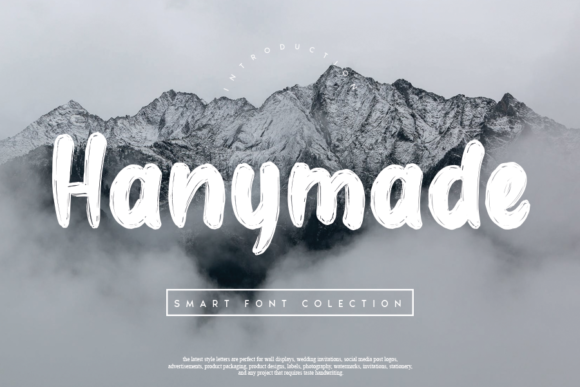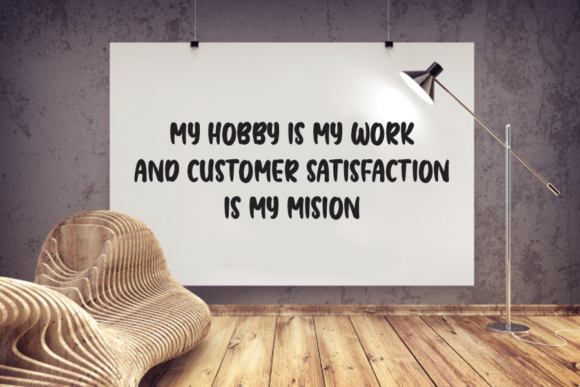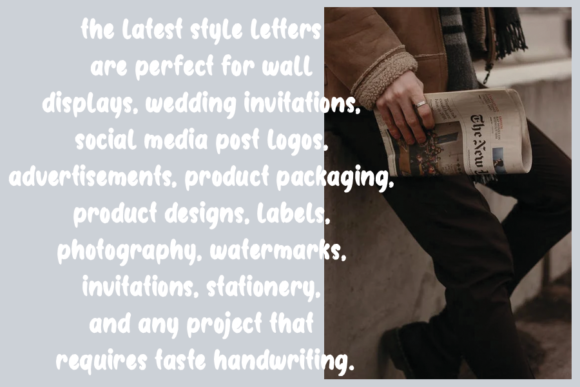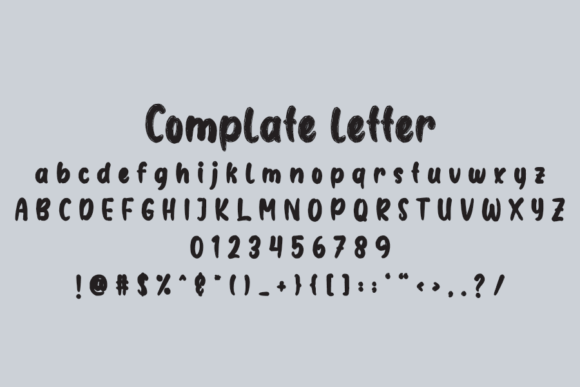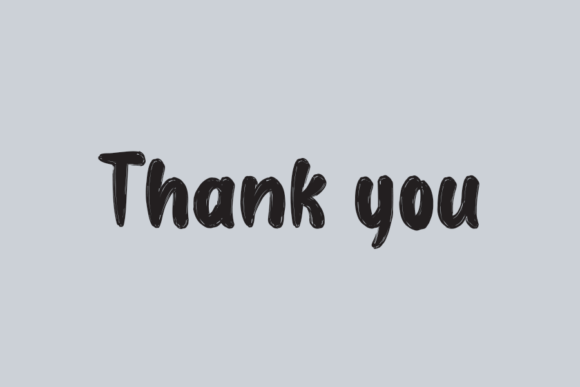
Hanymade Font
About Hanymade Font
Hanymade sounds like a delightful and versatile handwritten font that offers a sweet and friendly touch to a wide range of design projects. With its natural and unique style, Hanymade opens up endless creative possibilities. Here are some exciting ways you can use Hanymade to bring charm and creativity to your designs:
1. Wedding Invitations: Design romantic and whimsical wedding invitations that reflect the couple’s personality using Hanymade’s sweet and friendly letterforms.
2. Greeting Cards: Create heartwarming and personalized greeting cards for birthdays, holidays, and special occasions, conveying warm wishes with Hanymade’s natural touch.
3. Branding and Logo Design: Use Hanymade to add a handcrafted and approachable feel to your brand identity, perfect for businesses that want to evoke a friendly and personal touch.
4. Social Media Graphics: Craft eye-catching and engaging social media graphics, such as quotes, announcements, and promotions, using Hanymade to connect with your audience on a personal level.
5. Product Packaging: Incorporate Hanymade into product packaging design to create a charming and unique brand identity that stands out on store shelves.
6. Art Prints: Design art prints with inspirational quotes or illustrations, using Hanymade’s natural and friendly style to add a touch of warmth to your artwork.
7. Stationery: Create playful and delightful stationery sets, including notepads, stickers, and bookmarks, using Hanymade to add a dash of personality to your designs.
8. Blog Graphics: Use Hanymade in blog post graphics, featured images, and banners to create a cozy and inviting atmosphere for your readers.
9. Book Covers: Design book covers for children’s books, feel-good novels, or motivational titles, utilizing Hanymade’s friendly and approachable vibe.
10. Event Invitations: Craft charming and delightful event invitations for parties and celebrations, infusing Hanymade’s sweet and friendly touch into the design.
11. Quote Artwork: Turn inspiring quotes into heartwarming artwork using Hanymade, combining a natural and unique style to make your designs truly stand out.
12. Packaging Labels: Design playful and engaging labels for homemade products, adding Hanymade’s friendly touch to your artisanal creations.
13. DIY Crafts: Use Hanymade for various DIY craft projects, such as custom gift tags, scrapbooking, and handmade gifts, to add a warm and personal touch.
14. Website Headings: Incorporate Hanymade in website headings and banners to create a welcoming and approachable first impression for visitors.
15. Typography Art: Create custom typography art using Hanymade’s natural and unique style, experimenting with different layouts and compositions to showcase your creativity.
16. Magazine Covers: Design inviting and cheerful magazine covers using Hanymade, capturing the attention of readers with its friendly and natural charm.
17. Home Decor: Create personalized and cozy home decor items, such as wall art and decorative signs, using Hanymade to add a touch of warmth to your space.
18. Party Invitations: Craft delightful and playful party invitations for various events, infusing Hanymade’s sweet and friendly touch into the design.
19. Handmade Crafts: Personalize handmade crafts and DIY projects with Hanymade, adding a warm and endearing feel to your creations.
20. Personal Projects: Use Hanymade for any creative personal projects that need a touch of sweetness and friendliness.
In summary, Hanymade’s sweet and friendly handwritten style makes it an ideal choice for a wide range of design projects. Embrace the natural and unique charm of Hanymade and let your imagination run wild in creating delightful and heartwarming designs. Whether you’re designing for weddings, branding, social media, or DIY projects, Hanymade’s versatile and approachable vibe will add a touch of warmth and creativity to your work.